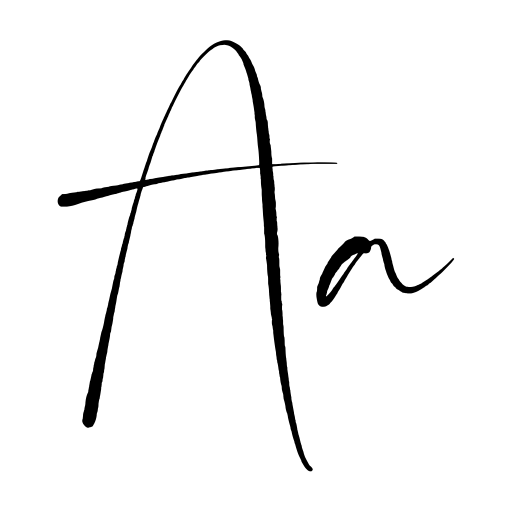
Bartdeng is a graceful, handwritten script font characterized by its slender, flowing strokes and elegant, slightly slanted letterforms. It conveys a refined and personal feel, making it perfect for use in invitations, branding, fashion, or any design that seeks a touch of sophistication with a natural, human touch. Its delicate style works best in larger sizes where its detail and charm can truly shine.
Bartdeng Font
About Bartdeng Font